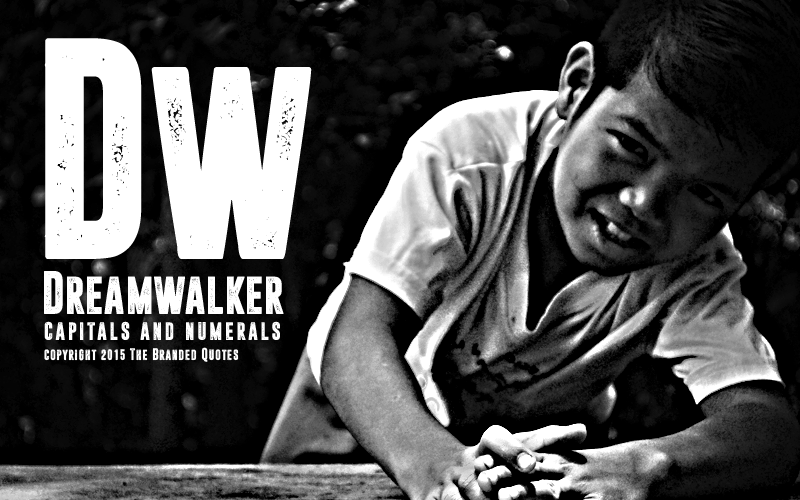
Preview and download Dreamwalker Font. Created by The Branded Quotes in Fancy Eroded styles with Free for personal use license.
Personal Use Only. Purchase the Licensed Version: https://sellfy.com/p/y9LA/ This comes with free Photoshop shapes and high-resolution textures. Textured Sans Serif font works well with vintage logos, headers, prints,videos and identity. Put it over your great photographs without having to modify the font with texture effects. Enjoy! |